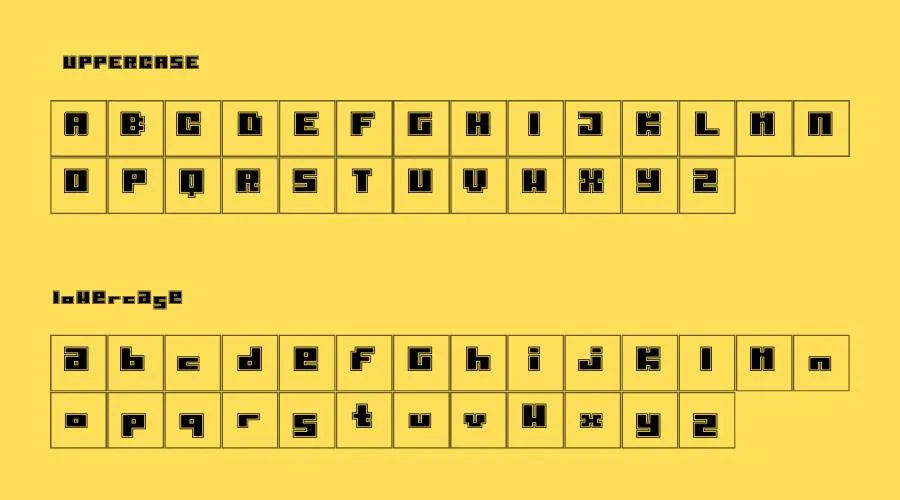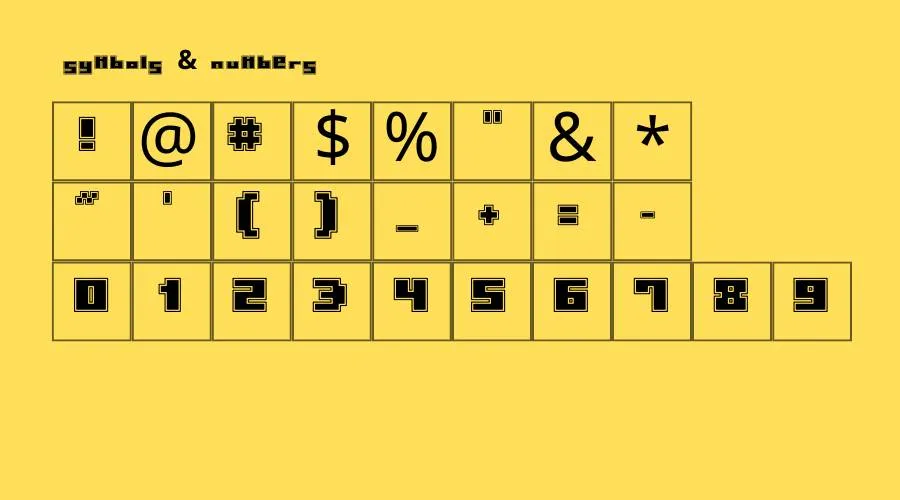
Pormask Innebr Font
About Pormask Innebr Font
Pormask Innebr Font designed by LJ-Design Studios. You can make gorgeous typographic and attractive graphics by using this font.
This design would be excellent for long-term projects since it helps to produce simple and attractive layouts. This can be created by using a generating tool online.
The typeface supports many languages. Use the typeface to make interesting designs, covers, and names for shops. The typeface is also perfect for product packaging and branding projects. It is ideal for creating eye-catching designs such as wedding invitations, social media posts, computer games, art books, webpage patterns, and printed projects because of its fantastic and distinctive qualities.
You may mix this font with fastgraph freehand font and create outstanding projects. As well as it can be used in brand design, this typeface is also appropriate for logos. The design is extremely unique yet recognizable, it is ideal for headings as well as other advertising purposes.
The broad letters look highly distinctive and make a big special effect. Making it a highly beautiful style. For headers, branding, or other graphic apps, it’s a fantastic option.
Style Techno
What’s the Closest Text style to Pormask Innebr Font?
The space frigate font is exceptionally close to this typeface.